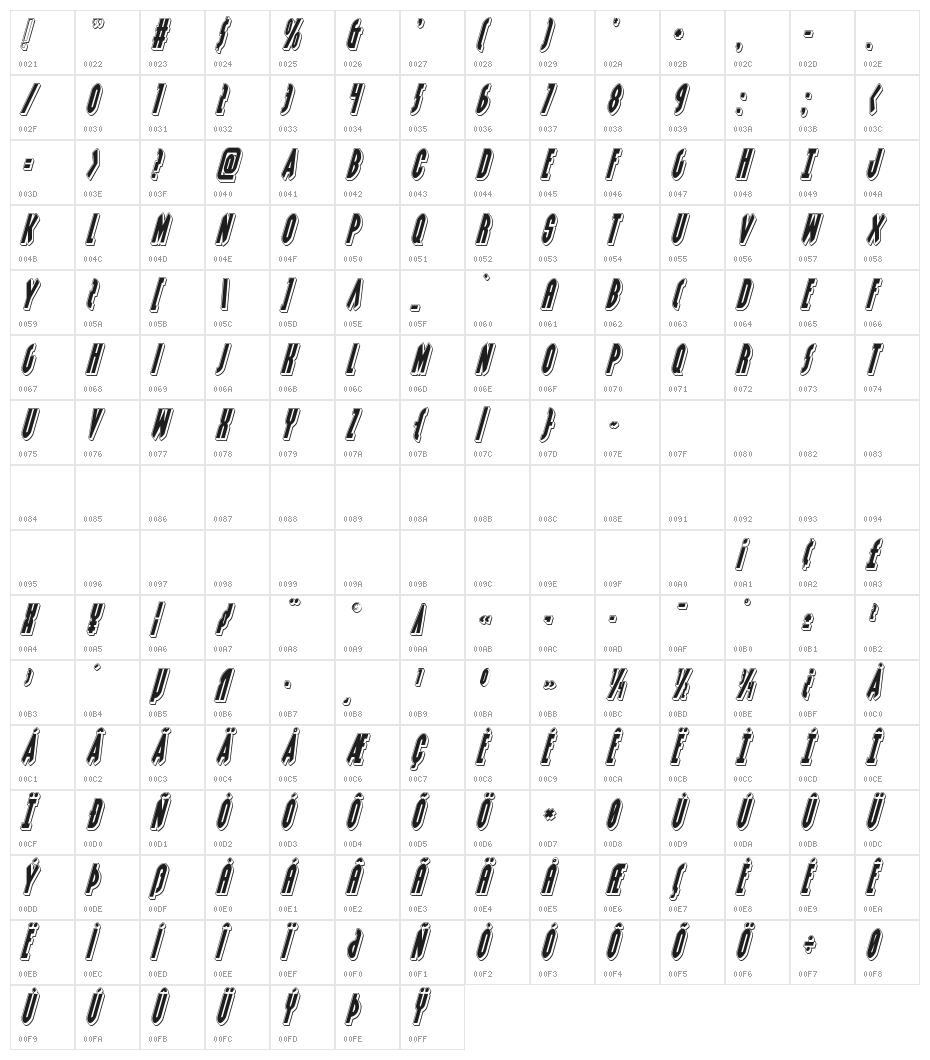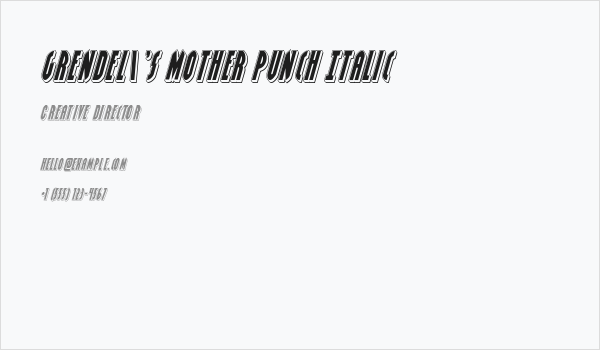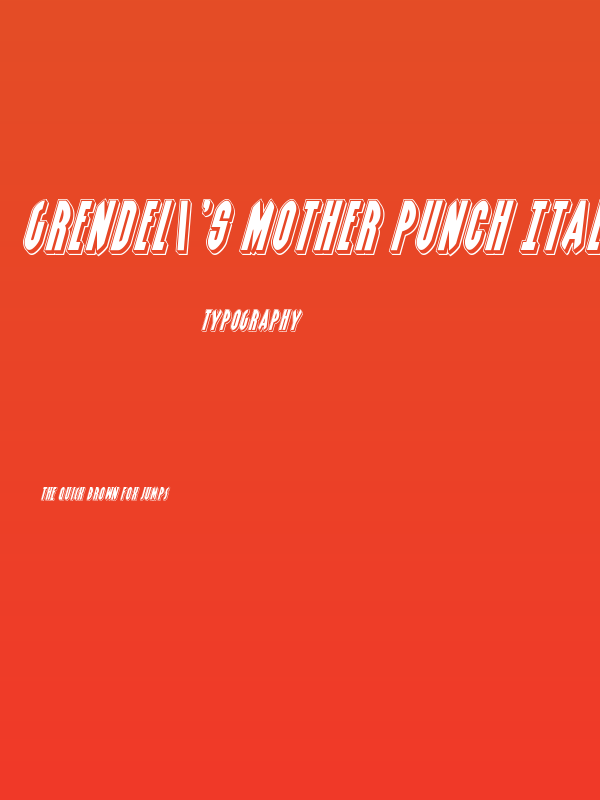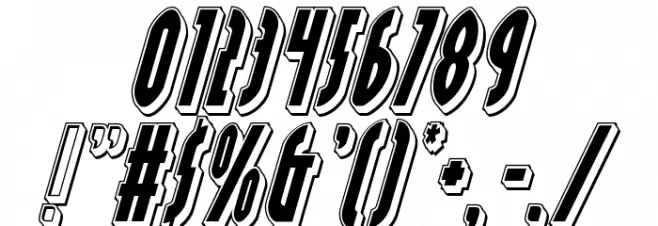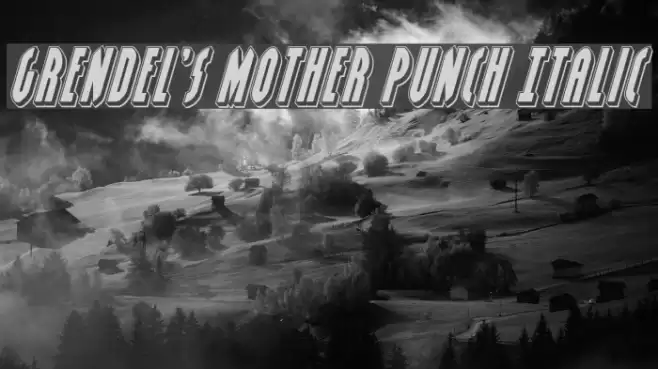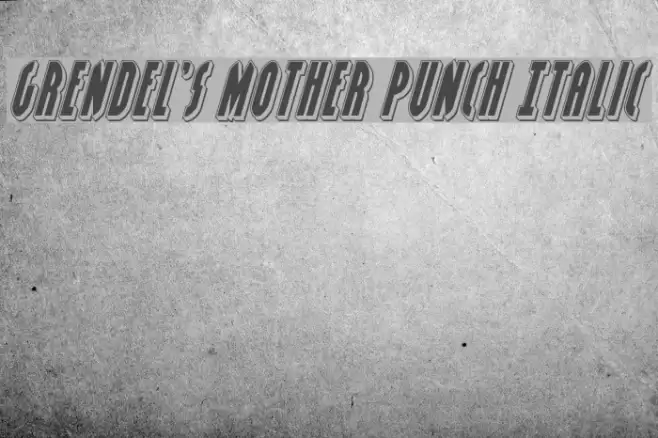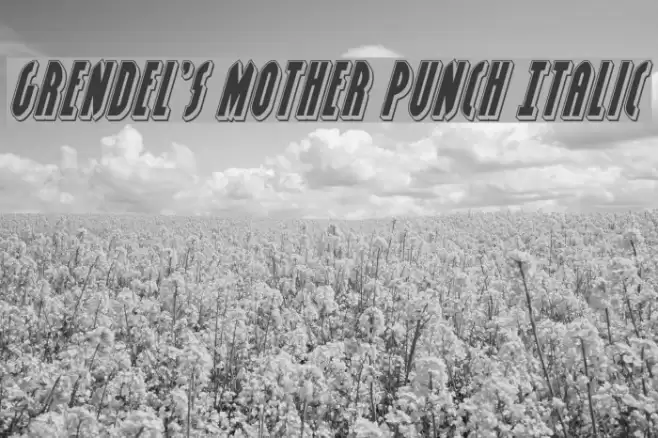
Grendel's Mother Punch Italic Font
Grendel's Mother Punch Italic Description
This font features a bold and dynamic style with a strong italic slant, giving it a sense of movement and energy. The characters are outlined with a thick black shadow, enhancing their three-dimensional appearance. The uppercase and lowercase letters maintain a consistent height, contributing to a cohesive look. The numbers and special characters follow the same bold and italicized design, ensuring uniformity across all glyphs. This font's striking appearance makes it ideal for attention-grabbing designs.
| Proposed Projects | Ideal for posters, logos, sports branding, and any design requiring a bold statement. |